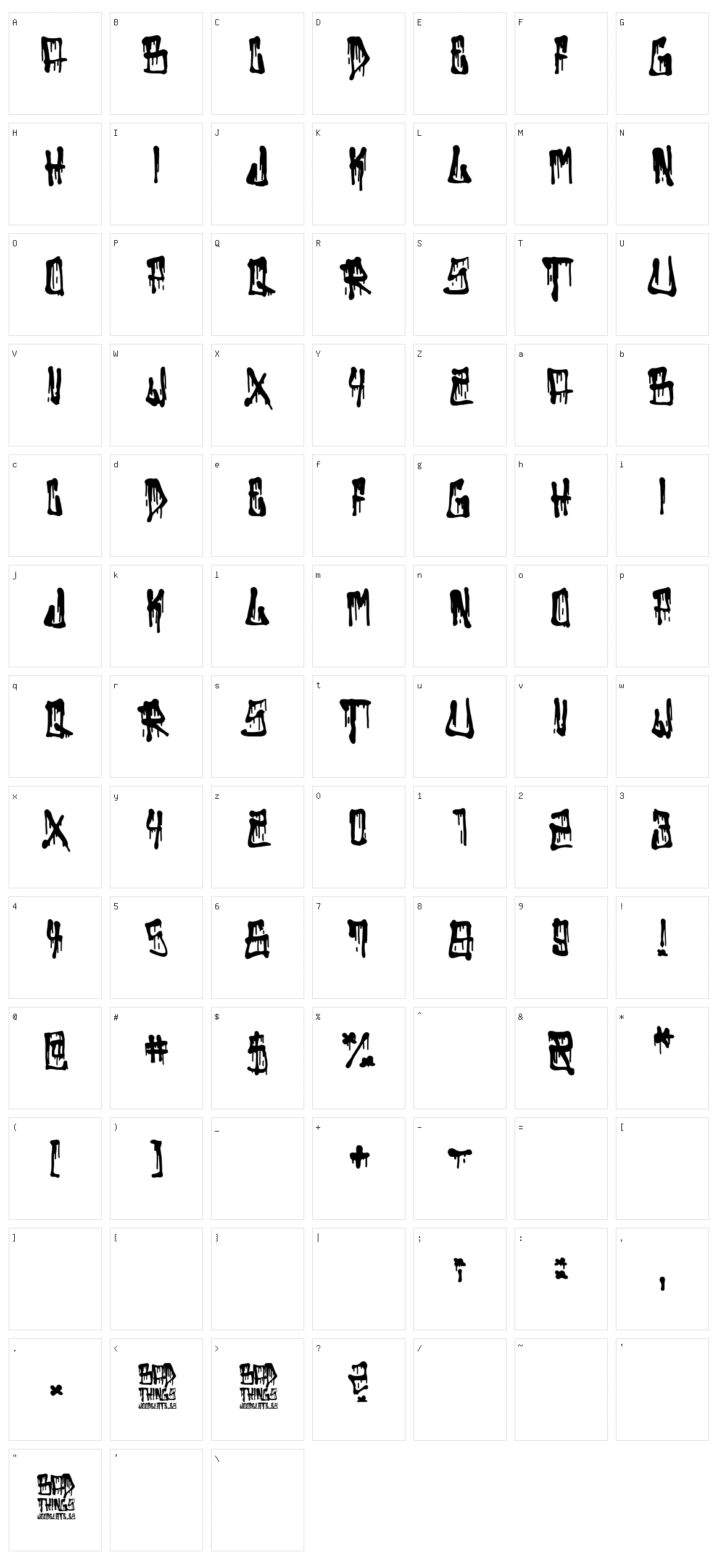
The free font Bad Things is carefully designed by Woodcutter, showcasing a thoughtful balance of creativity and usability and falls under the Horror font style. When you download the ZIP file, it contains only 63.05 KB of font files, making it lightweight and quick to download. Please review the license details below to understand permitted usage and distribution rights. If license information is not available, we recommend using this font for personal projects only or contacting the author directly for commercial usage permissions.